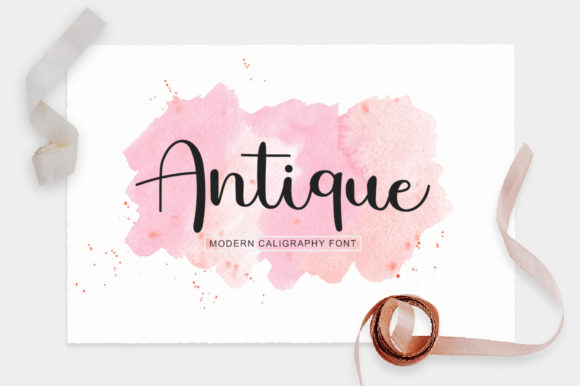
Discover the Charm of Antique Font: A Sweet and Soft Hand-Lettered Delight
Are you a designer or crafter looking for a font that exudes warmth, elegance, and a touch of nostalgia? Look no further than Antique, a beautiful hand-lettered font that is sure to capture your heart. With its soft, gentle curves and authentic feel, Antique is the perfect choice for creating stunning wedding invitations, gorgeous stationery art, eye-catching social media posts, and adorable greeting cards.
The Allure of Antique Font
Antique Font is a sweet and soft hand-lettered handwritten font that is designed to evoke a sense of nostalgia and romance. Its delicate curves and subtle imperfections give it a charming, one-of-a-kind feel that is sure to set your designs apart. Whether you’re creating wedding invitations, stationery, or social media graphics, Antique Font is the perfect choice for adding a touch of elegance and sophistication.
What Makes Antique Font So Special?
So, what makes Antique Font so special? Here are just a few reasons why designers and crafters are falling in love with this beautiful font:
- Authentic feel: Antique Font has a genuine, hand-crafted feel that is sure to add a touch of warmth and personality to your designs.
- Soft and gentle curves: The soft, gentle curves of Antique Font give it a delicate, romantic feel that is perfect for creating beautiful wedding invitations and stationery.
- Highly versatile: Whether you’re creating digital graphics or printing on paper, Antique Font is highly versatile and can be used for a wide range of design projects.
- Easy to read: Despite its delicate curves, Antique Font is surprisingly easy to read, making it perfect for creating designs that need to communicate a message.
Using Antique Font in Your Designs
So, how can you use Antique Font in your designs? Here are a few ideas to get you started:
- Wedding invitations: Create stunning wedding invitations that set the tone for a beautiful, elegant wedding with Antique Font.
- Stationery art: Use Antique Font to create gorgeous stationery art that is perfect for sending letters or creating art journals.
- Social media posts: Add a touch of elegance and sophistication to your social media posts with Antique Font.
- Greeting cards: Create adorable greeting cards for special occasions like birthdays, anniversaries, and holidays with Antique Font.
Tips for Getting the Most Out of Antique Font
Here are a few tips for getting the most out of Antique Font:
- Experiment with colors: Try pairing Antique Font with different colors and textures to create unique and eye-catching designs.
- Play with sizes: Experiment with different font sizes to create visual interest and hierarchy in your designs.
- Add embellishments: Consider adding embellishments like flowers, leaves, or other graphics to enhance your designs and add visual interest.
In conclusion, Antique Font is a beautiful, sweet, and soft hand-lettered font that is sure to capture your heart. With its authentic feel, delicate curves, and highly versatile design, Antique Font is the perfect choice for designers and crafters looking to add a touch of elegance and sophistication to their designs. Whether you’re creating wedding invitations, stationery art, social media posts, or greeting cards, Antique Font is sure to inspire your creativity and help you create stunning designs that will leave a lasting impression.